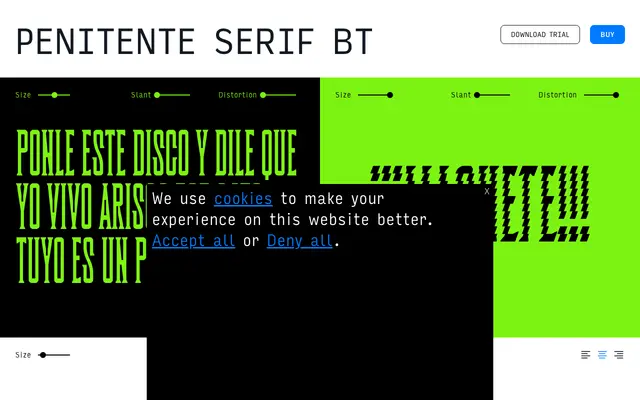
Penitente Serif BT
Bastarda · Juan Pablo Fajardo
A display serif revived from the masthead of a 1907 Cartagena newspaper, extended into a variable font with axes for distortion and slant.
Rooted in archival research by Juan Pablo Fajardo of Piedra Tijera Papel, the typeface takes its structure from the heading of Penitente, a Colombian newspaper printed in Cartagena in 1907. The variable font includes four style variants spanning regular, slanted, distorted and slanted-distorted cuts, allowing animated or expressive typesetting across digital and print contexts. A companion sans-serif version, Penitente BT Sans, emerged from a reggaeton club project for Invade Design in Medellín.
Revived from the masthead of a 1907 Colombian newspaper, the typeface carries sharp, expressive serifs suited to display and headline use rather than extended text setting.